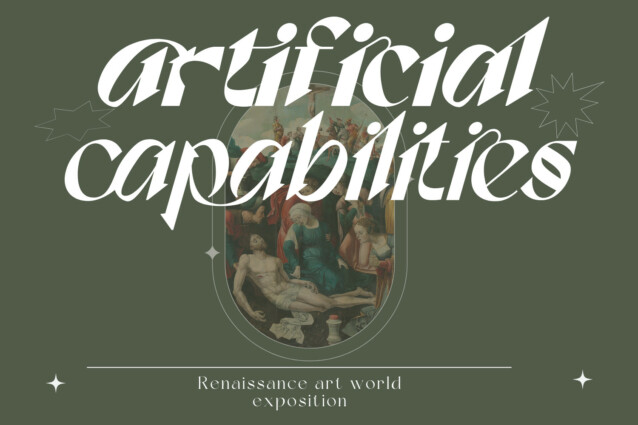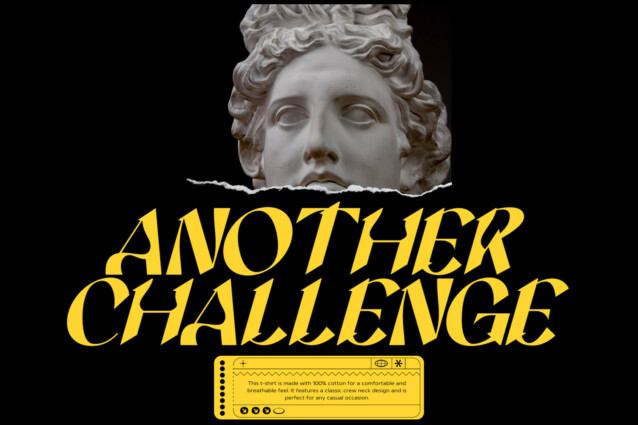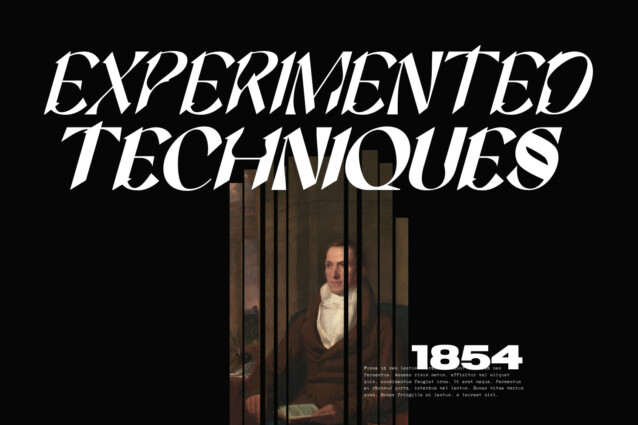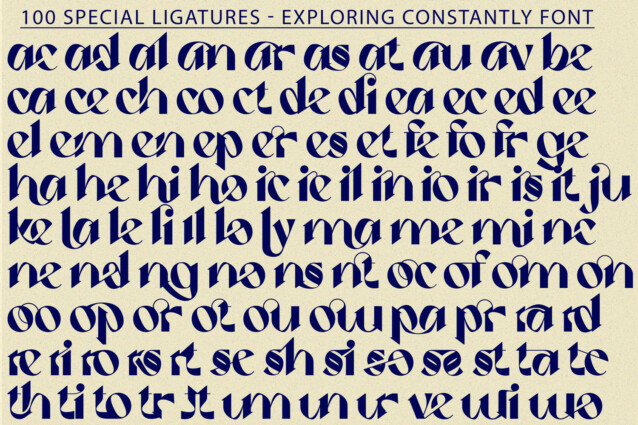
Exploring Constantly Font
Exploring Constantly Font – A serif modern and classic typeface that has own unique style & modern look. This font is both modern and nostalgic and works great for logos, magazine, social media. Already matched up and ready to be used together for your next design! This typeface is perfect for an elegant & luxury logo, book or movie title design, fashion brand, magazine, clothes, lettering, quotes, and so much more.
Exploring Constantly was built with OpenType features and includes 100 ligatures, alternate, numbers, punctuation, and it also supports other languages.
ac ad al an ar as at au av be ca ce ch co ct de di ea ec ed ee el em en ep er es et fe fo fr ge ha he hi ho ie ic il in io ir is it ju ke la le li ll lo ly ma me mi nc nd ne ng no nt ns oc of om on oo op or ot ou ow pa pr ra rd re ri ro rs rt se sh si so ss st ta te th ti to tr tt um un ur ve wi wo